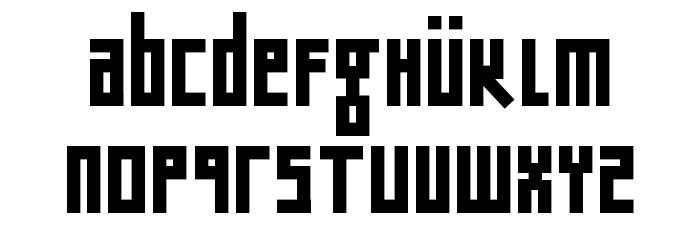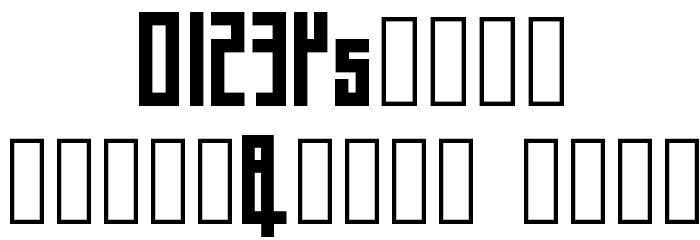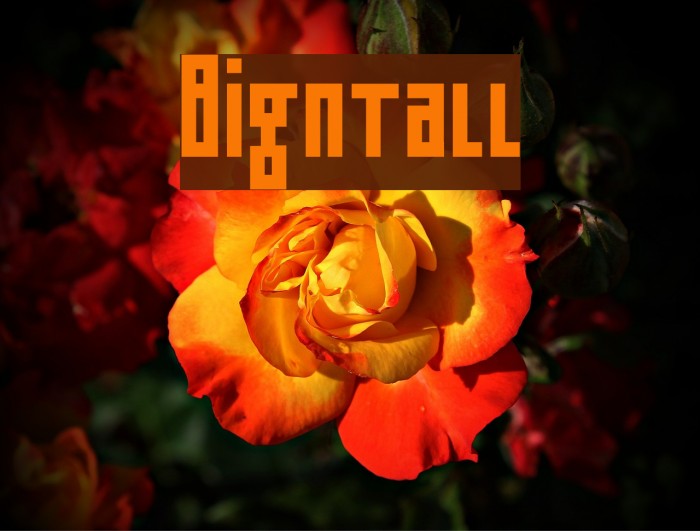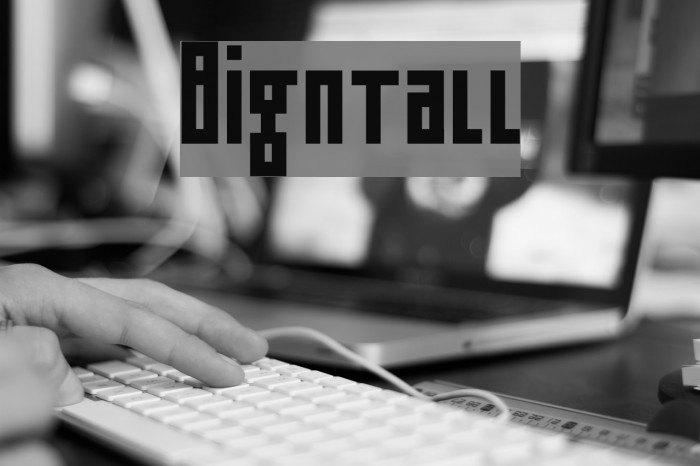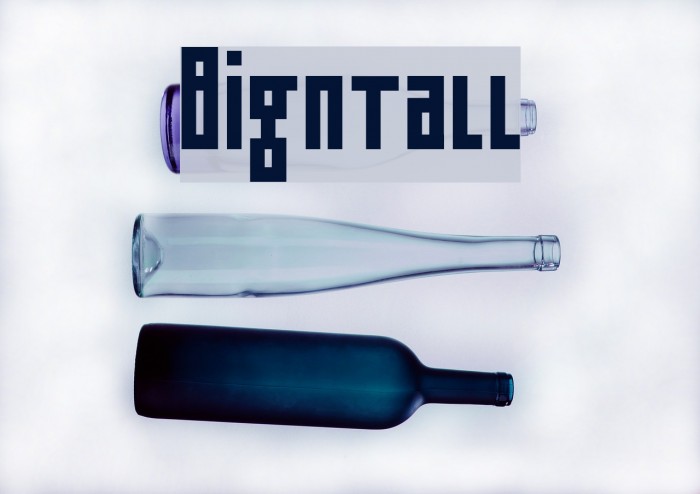
Bigntall Font
This font features a bold, geometric design with tall, narrow characters. The uppercase letters are particularly striking, with a blocky, angular appearance that gives them a modern and industrial feel. The lowercase letters maintain the same geometric style, ensuring consistency across the typeface. Numbers are equally bold and fit well with the overall aesthetic. The special characters are designed to match the boldness and angularity of the alphabet, making them suitable for attention-grabbing headlines or titles. The font's strong, structured lines and uniformity make it ideal for projects that require a modern, impactful look.
A bold, geometric font with tall, narrow characters and a modern, industrial feel.
- Proposed Projects: Ideal for posters, headlines, branding, and any design requiring a strong, modern aesthetic.